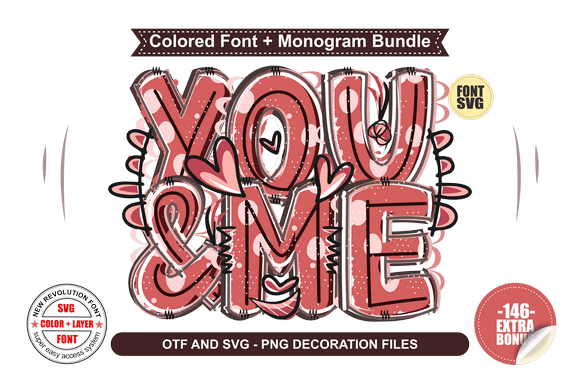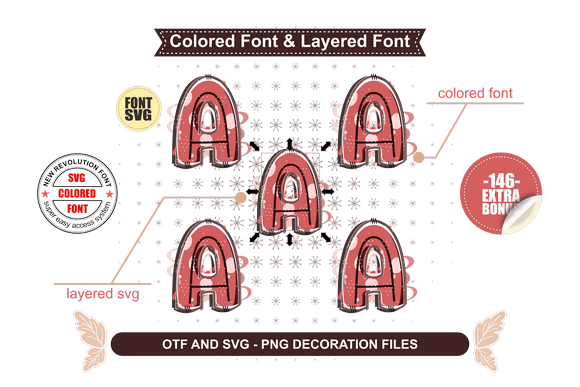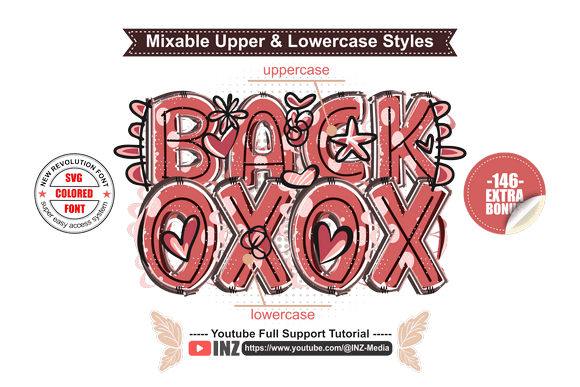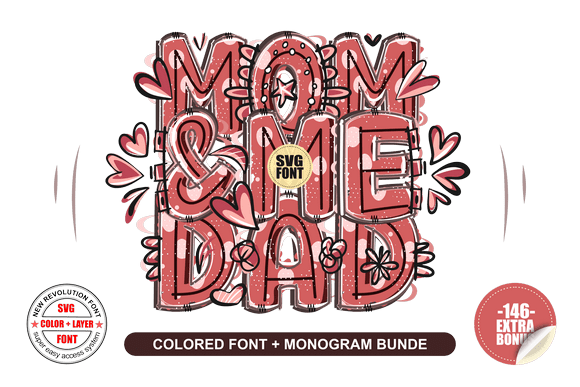
Introduction to Love Batik Font
β€œLove Batik” Colored SVG font, suitable for Retro Shirt Design, Lovely Day, Mother Day, Father Day, Valentine, Love Sublimation Design, Love Tshirt Design.
This Color Font will add a distinctive touch to your projects Transform Your days into retro style with the β€œLove Batik” font and enhance your designs with the 34 included lovely decorations.